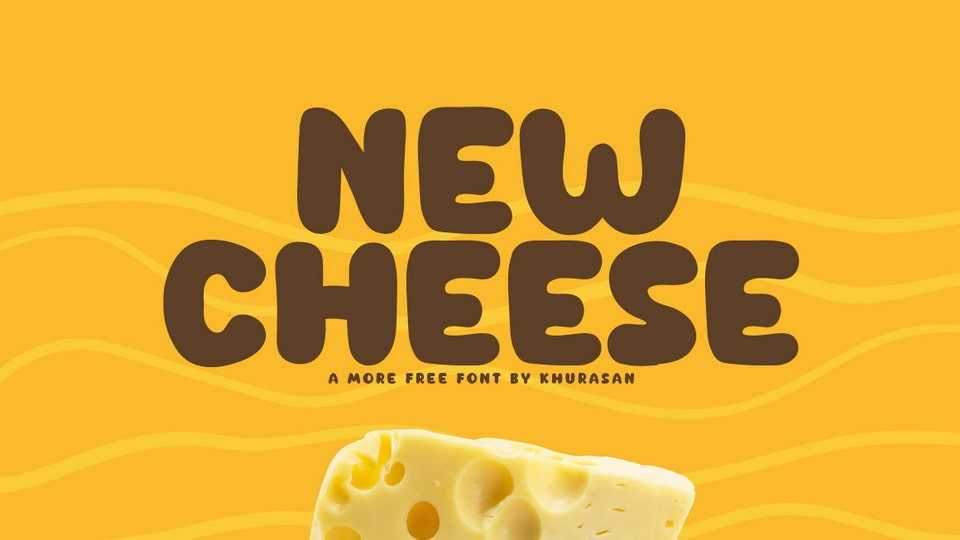
Download New Cheese font, a rounded cartoon typeface that brings a burst of whimsical charm and friendly personality to your designs. With New Cheese font your designs become a canvas for imaginative expression and animated storytelling.